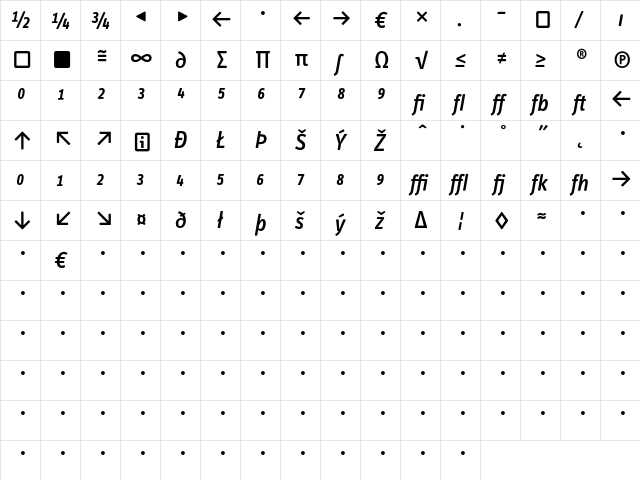
InfoTextMedium ItalicExp
Design Context for InfoTextMedium Typeface
InfoTextMedium is a composed and adaptable typeface that performs quietly and consistently across a wide range of design contexts. The dynamic lean of this cut emphasises speed and emphasis in any layout.
Pro Tip: Use InfoTextMedium for emphasis, pull quotes, and subheadings where its slanted energy can add rhythm to the layout.